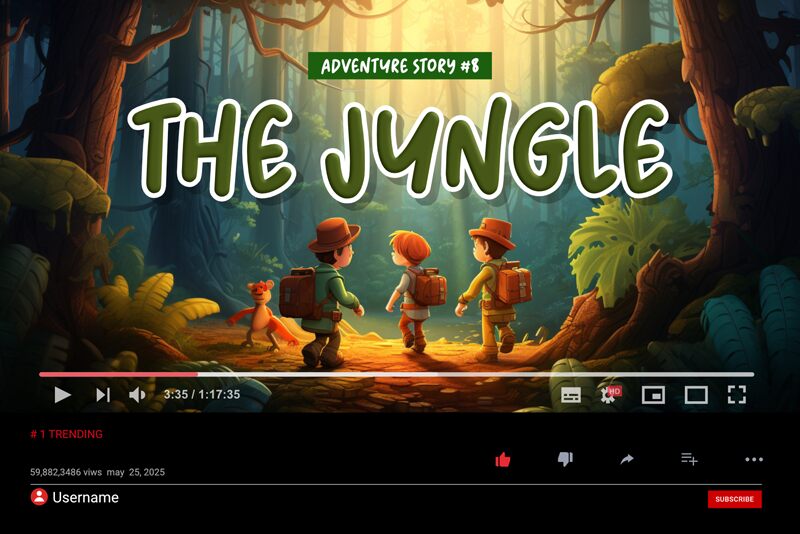
Hipster Hatch
Hipster Hatch font by DumadiStyle is a captivating display typeface that blends modern flair with a playful comic style. Its bold and confident curves, paired with an energetic flow, make it stand out in any design context. Ideal for projects needing a touch of fun and creativity, Hipster Hatch excels in headlines, posters, and branding.